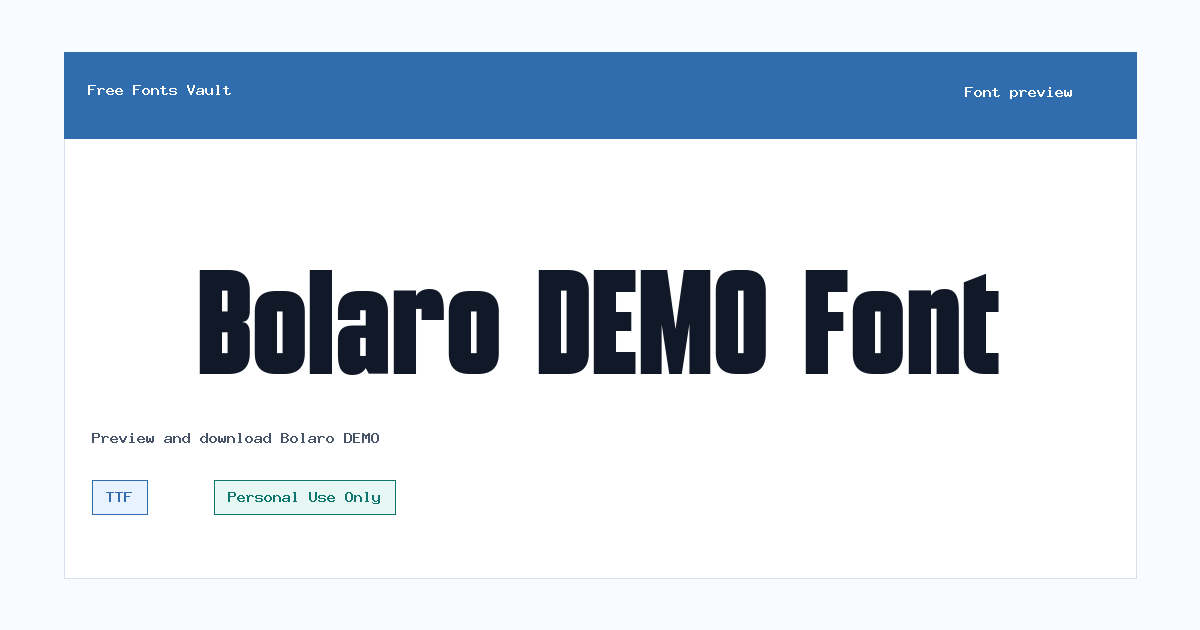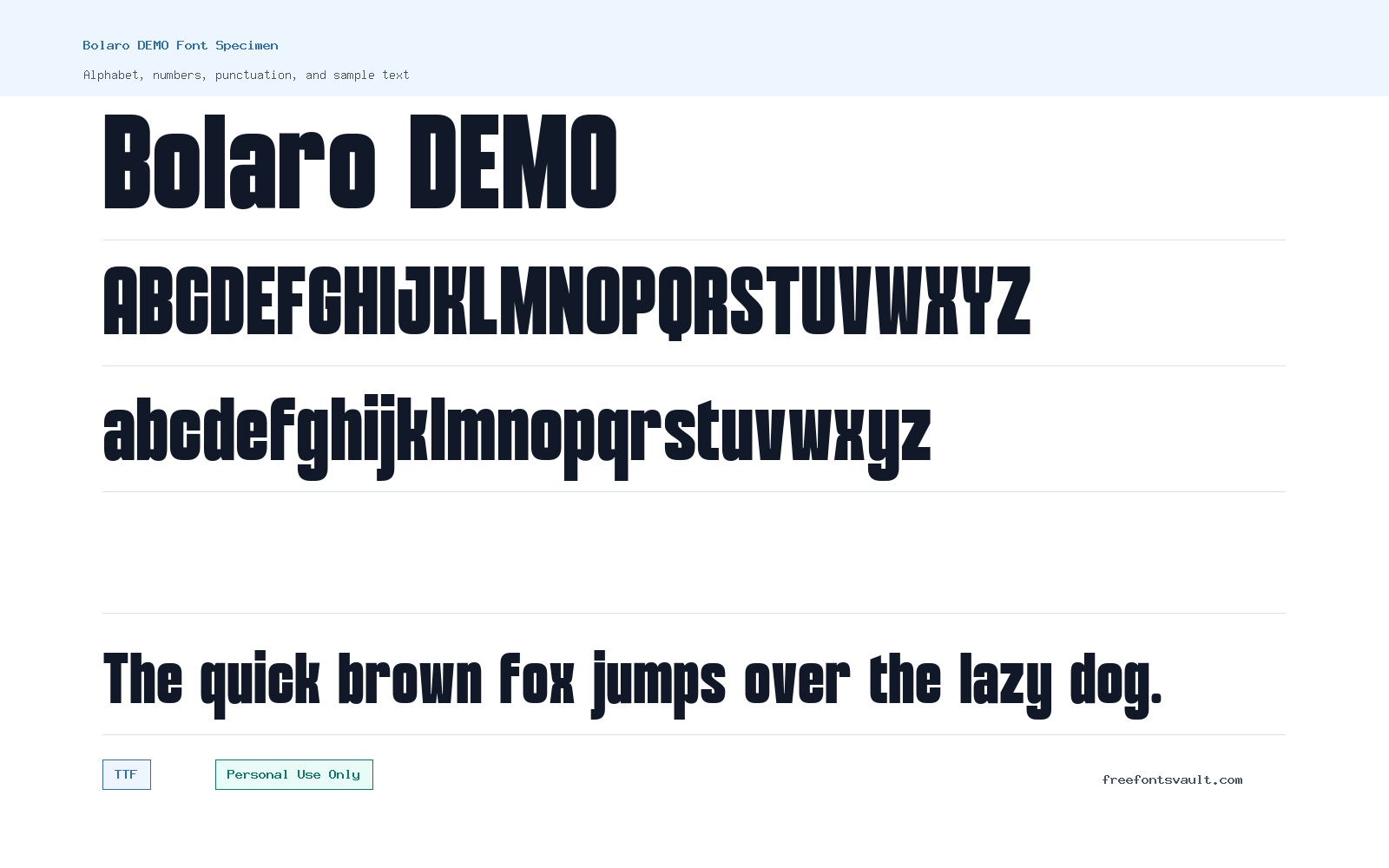
Bolaro DEMO
Bolaro DEMO is a display font with a strong headline feel, made for short text that needs to stand out. It comes as a regular-weight TTF font and is marked for personal use only.
Bolaro DEMO works best when the text is short, clear, and meant to be noticed first. Because it is a display font, it is a better fit for names, titles, labels, poster lines, and branding mockups than for long paragraphs. Use it where the type can take visual focus: a hero heading, a logo concept, a social graphic, a packaging draft, or a title lockup. If you are testing it for a logo or brand mark, try it in several sizes and with different letter spacing. Display fonts can change character quickly when they are squeezed, stretched, or placed too close together, so a little spacing adjustment may help the word shape feel more balanced.
For design work, Bolaro DEMO is most useful as a starting point for bold visual concepts. Try it in uppercase and title case, then compare how the letters behave in short names, product words, and event headings. It may pair best with a simpler sans serif for body text, captions, menus, and supporting information. Keep the display font for the main words and let the cleaner companion font handle reading-heavy areas. In web mockups, test it at headline sizes first and avoid using it for small navigation or long mobile text unless the preview remains easy to read. The downloaded file is a TTF, which is widely usable in design apps and many desktop projects, but web projects may require format conversion and a license that allows web use.
The safest way to evaluate Bolaro DEMO is to type your real project words into the preview, not just sample text. Look at repeated letters, spacing around round shapes, and how the first and last letters frame the word. Short display fonts often succeed or fail on the exact word being used, so a title that looks strong in one phrase may need kerning or a different pairing in another. For posters and social graphics, test it over both light and dark backgrounds. For web mockups, place it next to the body font you plan to use so the contrast feels intentional rather than mismatched.
- Display-focused style suited to short headings, titles, logo drafts, and poster text
- Useful for trying bold typographic layouts where the font carries the main visual attention
- Works best with restrained supporting type so the headline remains the focal point
- Logo concepts and branding drafts
- Social media artwork and promotional mockups
- Website hero headings and landing page previews
- Packaging studies, label concepts, and moodboard typography
- Personal design experiments, fan projects, and portfolio practice
Use Bolaro DEMO for short, high-impact text rather than body copy. Test your exact words in the preview, check spacing at the final size, and pair it with a simple sans serif or neutral text face for paragraphs, captions, and interface details.
What kind of projects is Bolaro DEMO best for?
It is best for short display text such as poster titles, logo drafts, social graphics, web hero headings, packaging concepts, and personal branding experiments.
Is Bolaro DEMO good for body text?
It is better suited to display use. For paragraphs, captions, or long website copy, pair it with a simpler text font that is easier to read at smaller sizes.